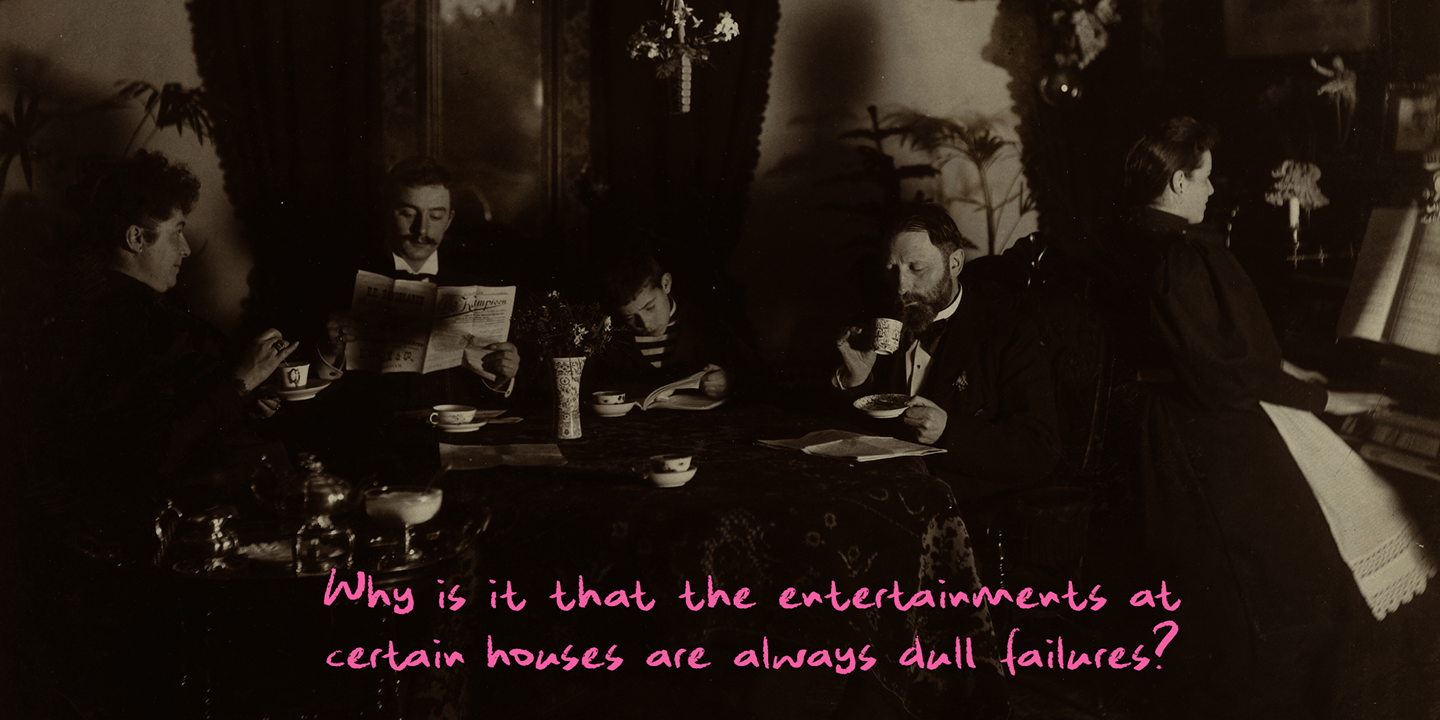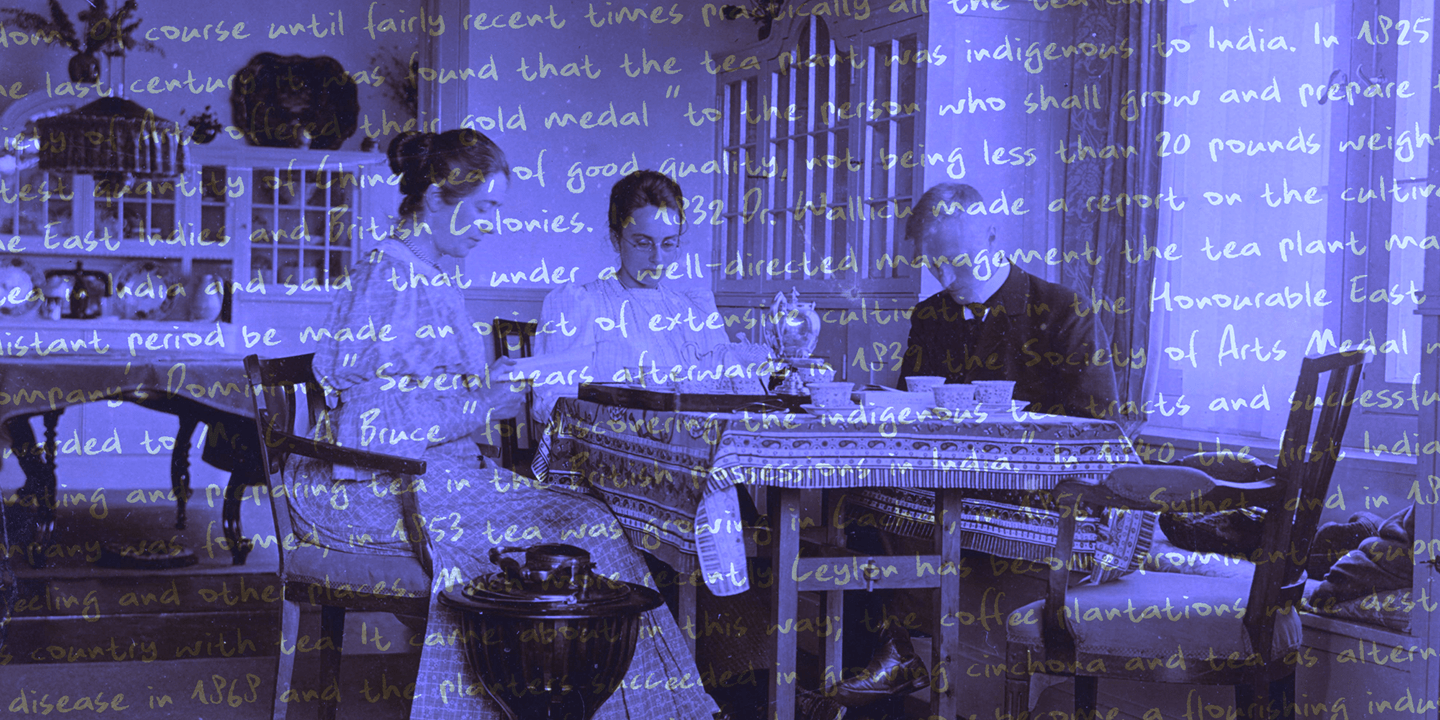
Tea And Oranges is a line from Leonard Cohen\’s song Suzanne. ?She feeds you tea and oranges that come all the way from China?. . . The song was a favourite of my brother Rizja who, sadly, recently passed away. Tea And Oranges is a a handwritten ?pencil?…